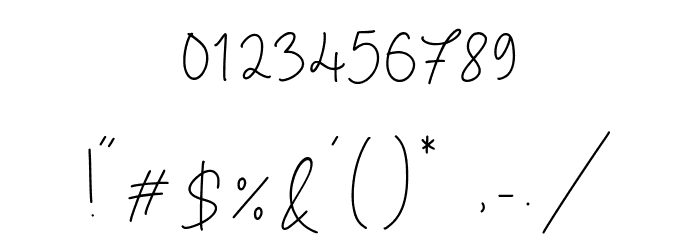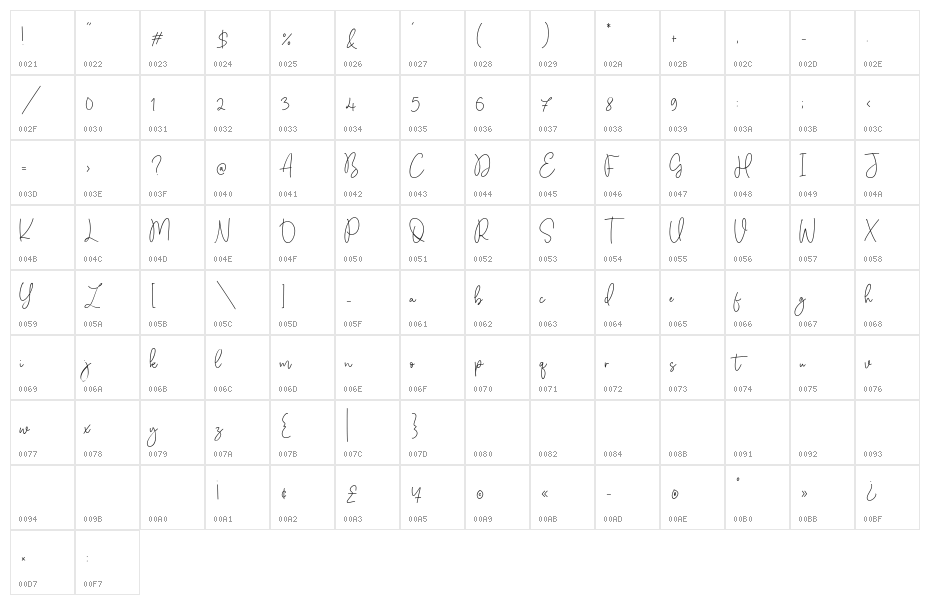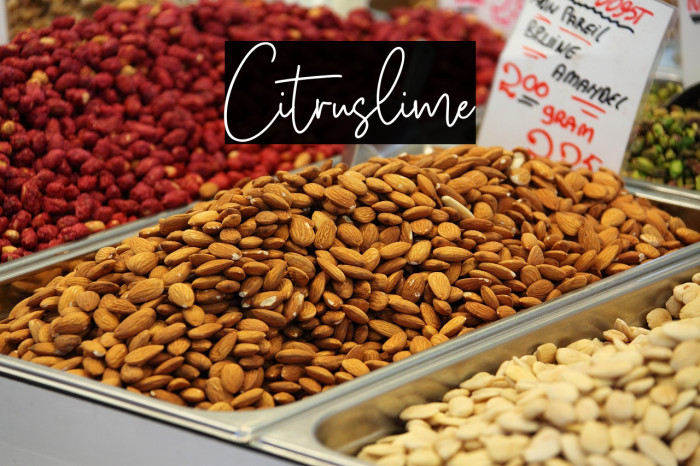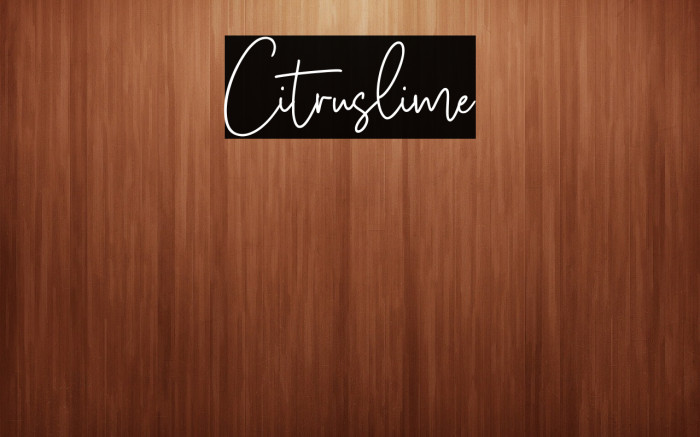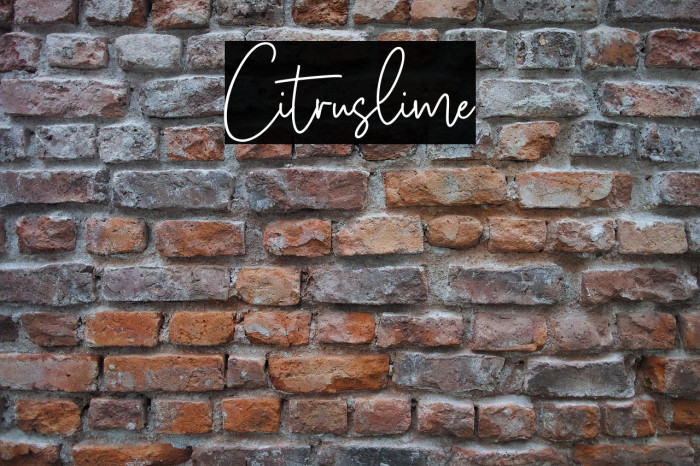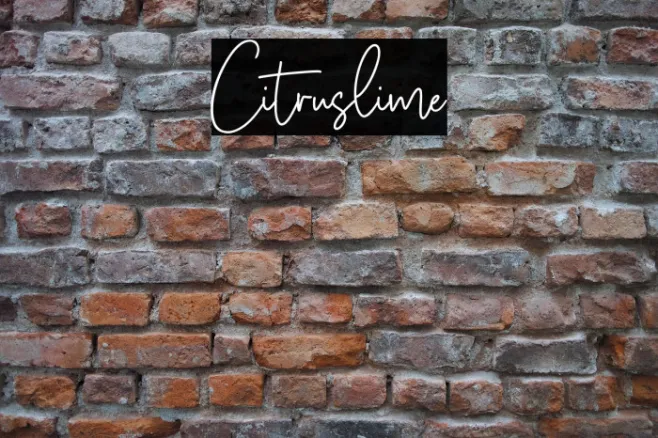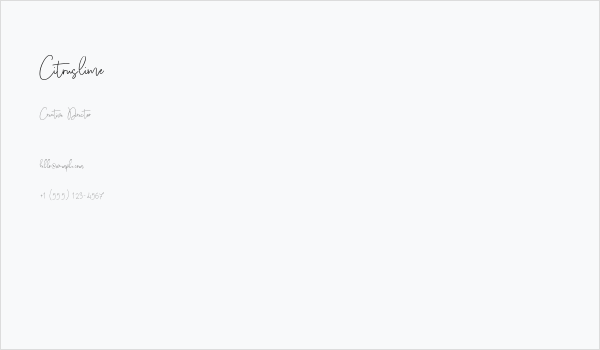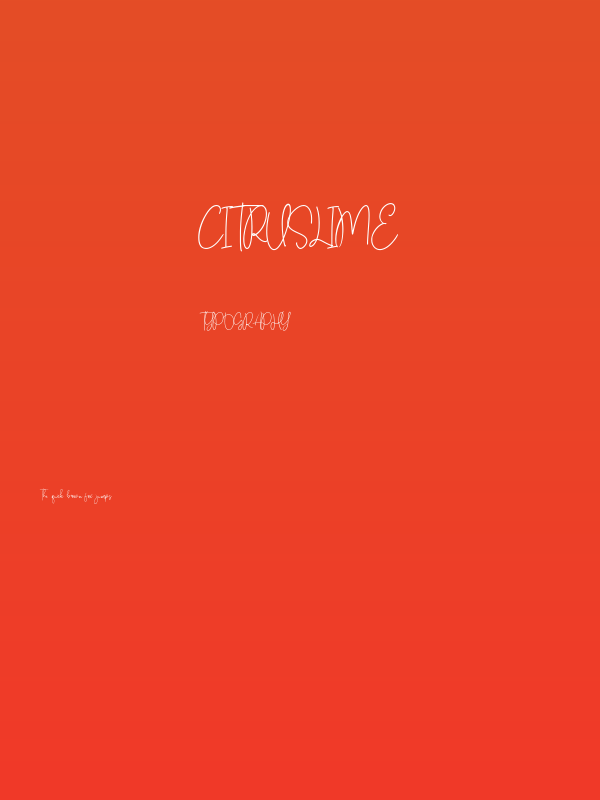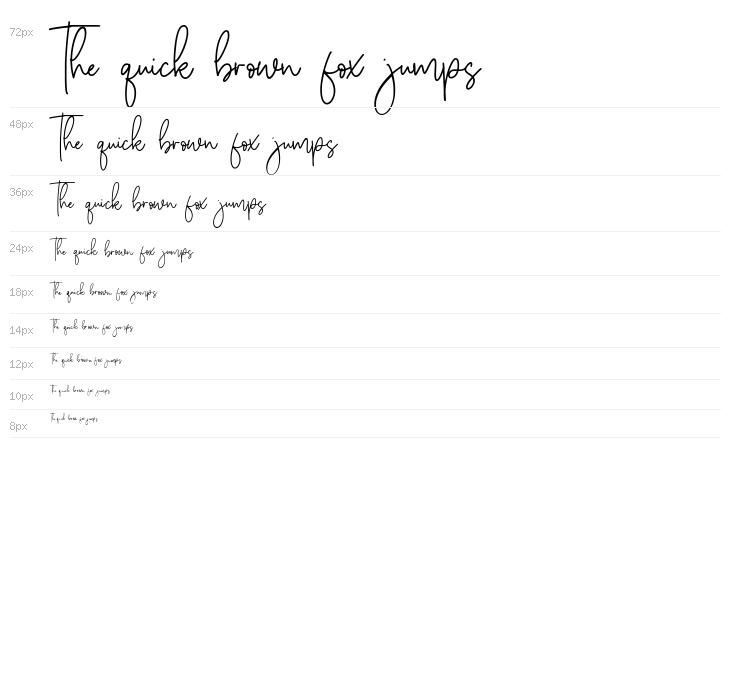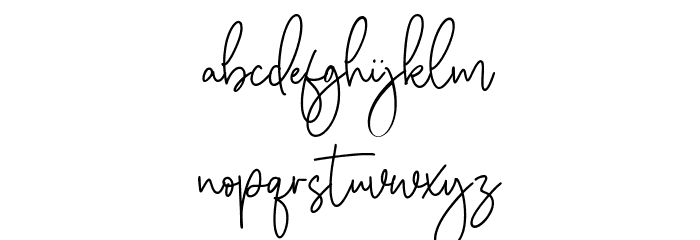
Citruslime Font
Citruslime Description
This font features a playful and whimsical handwritten style, characterized by its flowing, cursive letters that exude a sense of elegance and creativity. The uppercase letters are tall and slender, with a slight slant that adds to the dynamic feel of the typeface. The lowercase letters maintain a consistent style, with loops and curves that enhance the overall fluidity. Numbers and special characters are designed to match the playful nature of the alphabet, ensuring a cohesive look across all text. The font's light strokes and airy design make it ideal for adding a personal touch to any project.